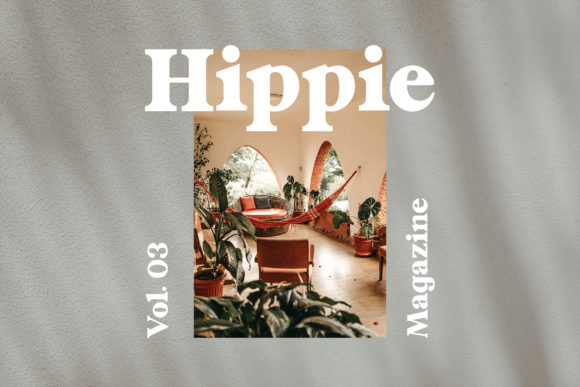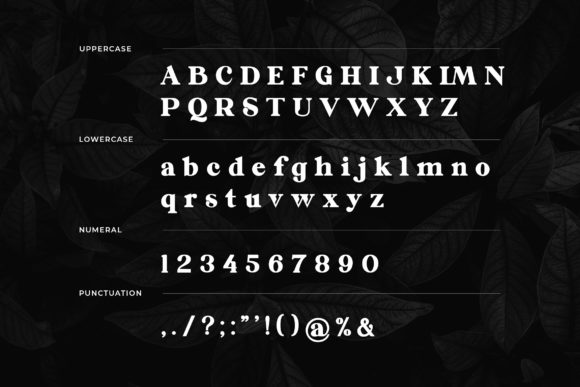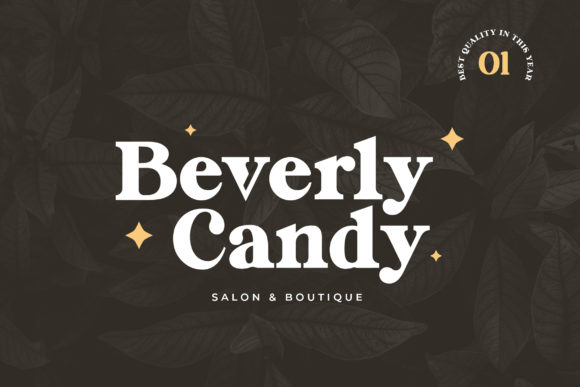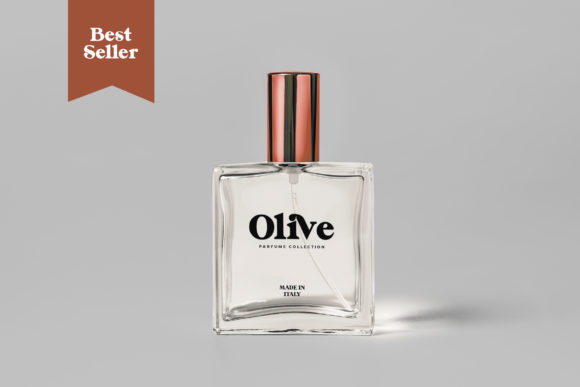
Introducing Galorine Font: Elevate Your Designs with Elegance and Sophistication
Are you tired of using the same old fonts in your designs? Look no further than Galorine Font, an elegant and thick lettered serif font that’s sure to take your creations to the next level. With its unique blend of authenticity and strong visual effect, Galorine Font is the perfect choice for designers and crafters looking to add a touch of sophistication to their work.
What is Galorine Font?
Galorine Font is a serif font that’s characterized by its thick, bold letters and elegant lines. Its classic design makes it perfect for use in a variety of projects, from logos and branding materials to invitations and packaging. Whether you’re looking to create a luxurious feel or simply want to add some visual interest to your designs, Galorine Font is an excellent choice.
Key Features of Galorine Font
- Elegant and Thick Lettered: Galorine Font features thick, bold letters that are sure to make a statement in any design.
- Authentic and Classic Design: With its classic serif design, Galorine Font has an authentic feel that’s perfect for use in a variety of projects.
- Strong Visual Effect: The bold lines and elegant curves of Galorine Font create a strong visual effect that’s sure to grab attention.
- Versatile: Galorine Font can be used in a variety of projects, from logos and branding materials to invitations and packaging.
Why Choose Galorine Font?
So why choose Galorine Font over other fonts? Here are just a few reasons why Galorine Font stands out from the crowd:
- Instantly Elevate Your Designs: With its elegant and thick lettered design, Galorine Font can instantly elevate your designs and make them more appealing to your audience.
- Perfect for Logos and Branding: The bold and classic design of Galorine Font makes it perfect for use in logos and branding materials.
- Add a Touch of Sophistication: Galorine Font adds a touch of sophistication to any design, making it perfect for use in high-end projects.
How to Use Galorine Font
Using Galorine Font in your designs is easy. Here are a few tips to get you started:
- Pair with Other Fonts: Galorine Font pairs well with other fonts, making it easy to create a unique and visually appealing design.
- Use in Headings and Titles: The bold design of Galorine Font makes it perfect for use in headings and titles.
- Experiment with Colors: Galorine Font looks great in a variety of colors, so don’t be afraid to experiment and find the perfect color for your design.
In conclusion, Galorine Font is an elegant and thick lettered serif font that’s perfect for designers and crafters looking to add a touch of sophistication to their work. With its unique blend of authenticity and strong visual effect, Galorine Font is sure to instantly elevate your designs and make them more appealing to your audience. So why wait? Try Galorine Font today and see the difference it can make in your designs.
- Use Galorine Font in Combination with Other Design Elements: Galorine Font looks great when used in combination with other design elements, such as images and graphics.
- Experiment with Different Sizes and Styles: Galorine Font comes in a variety of sizes and styles, so don’t be afraid to experiment and find the perfect look for your design.
- Use Galorine Font to Create a Consistent Brand Identity: Galorine Font is perfect for use in branding materials, such as logos and business cards.